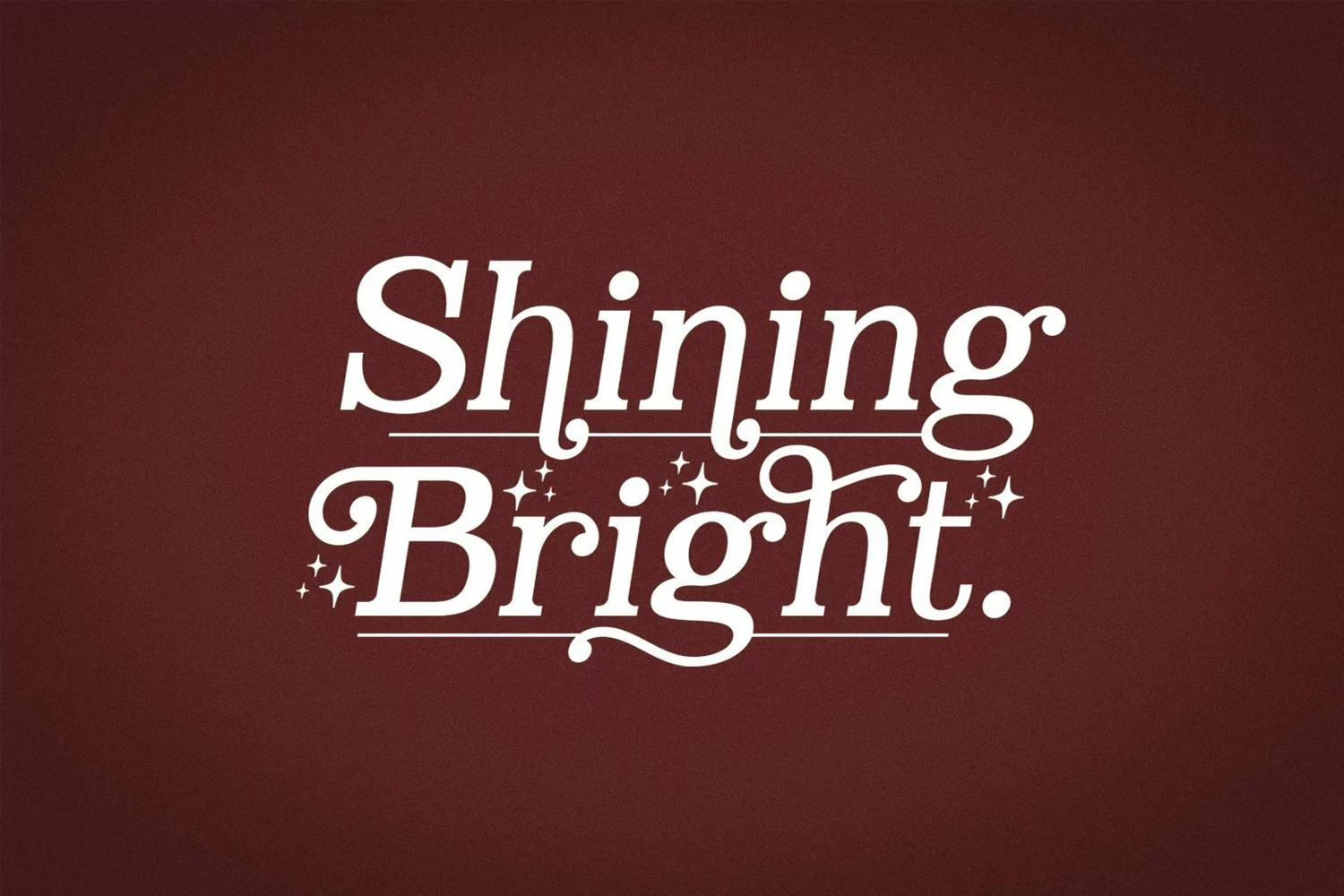
Web Font Zome is a sans serif alternates typeface. Perfect for display, poster, quotes, film, craft needs, book cover, business card, packaging, merchandise, branding, logo, logotype, header, title, and many more.